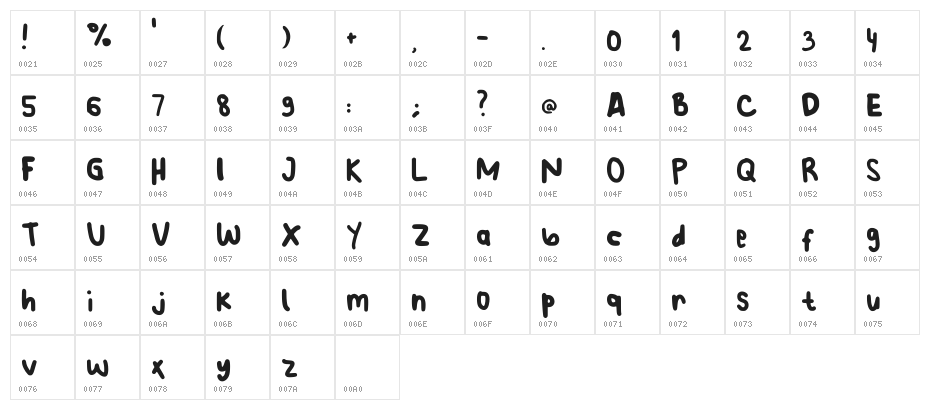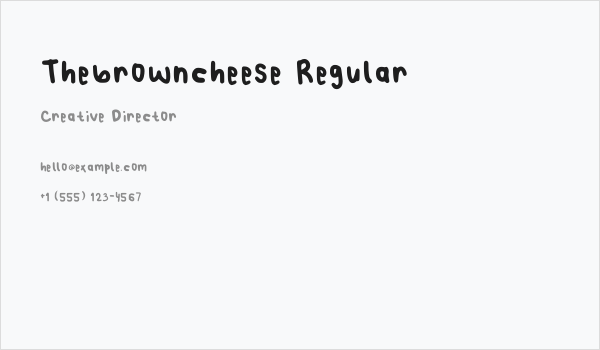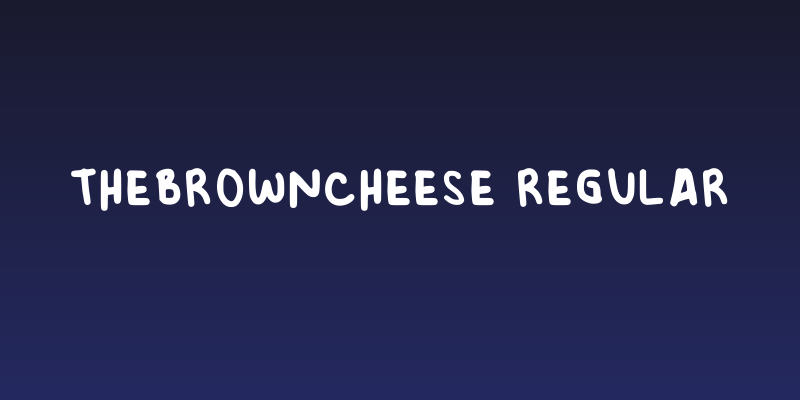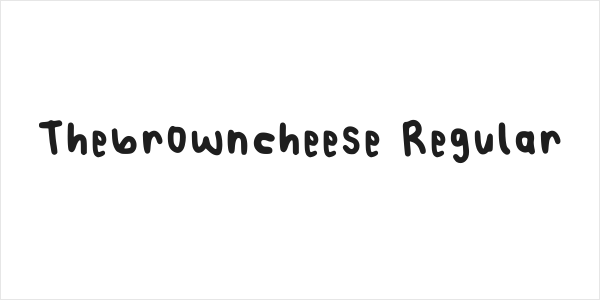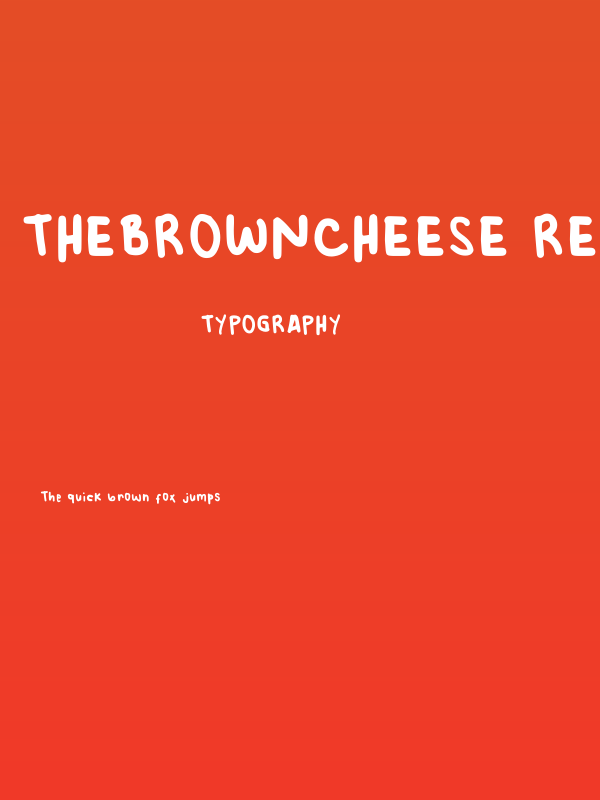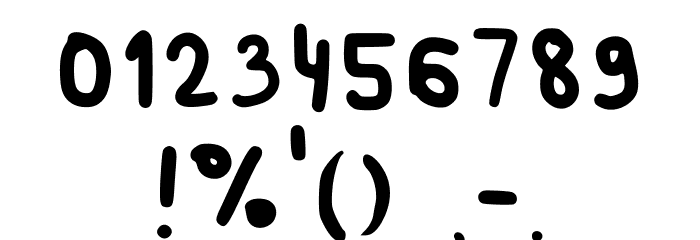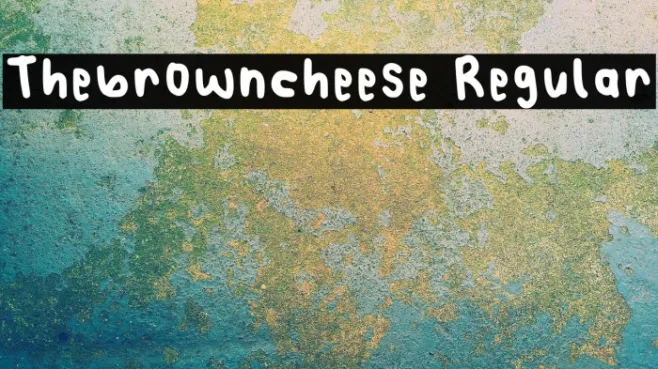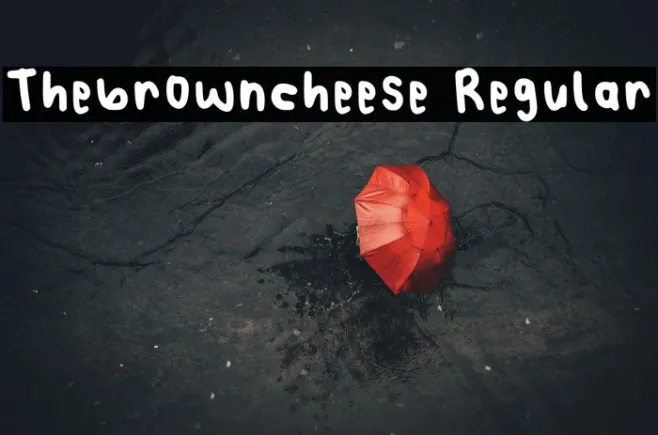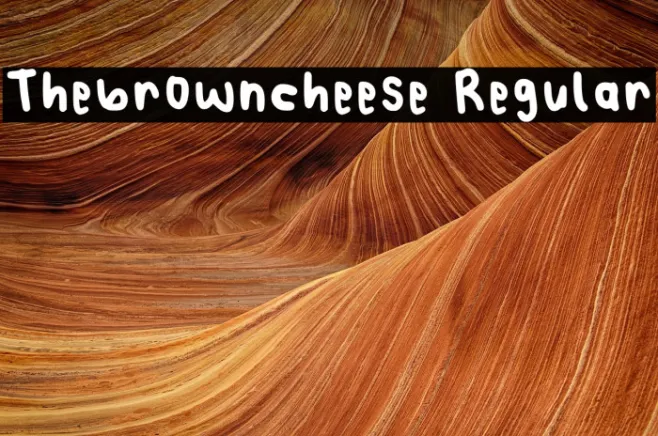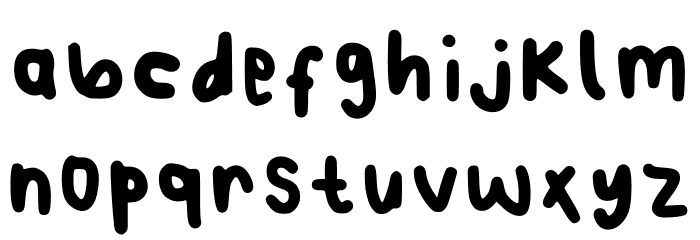
Thebrowncheese Regular Font
Thebrowncheese Regular Description
This playful and quirky font features a handwritten style with bold, rounded characters that convey a sense of fun and informality. The letters are slightly irregular, adding to the casual and approachable feel. The uppercase and lowercase letters maintain a consistent style, with a smooth flow and rounded edges. The numbers and special characters are equally bold and maintain the same playful aesthetic. This font is perfect for projects that require a touch of whimsy and personality, making it ideal for children's books, playful branding, or casual invitations.
| Proposed Projects | Children's books, playful branding, casual invitations, greeting cards, and social media graphics. |